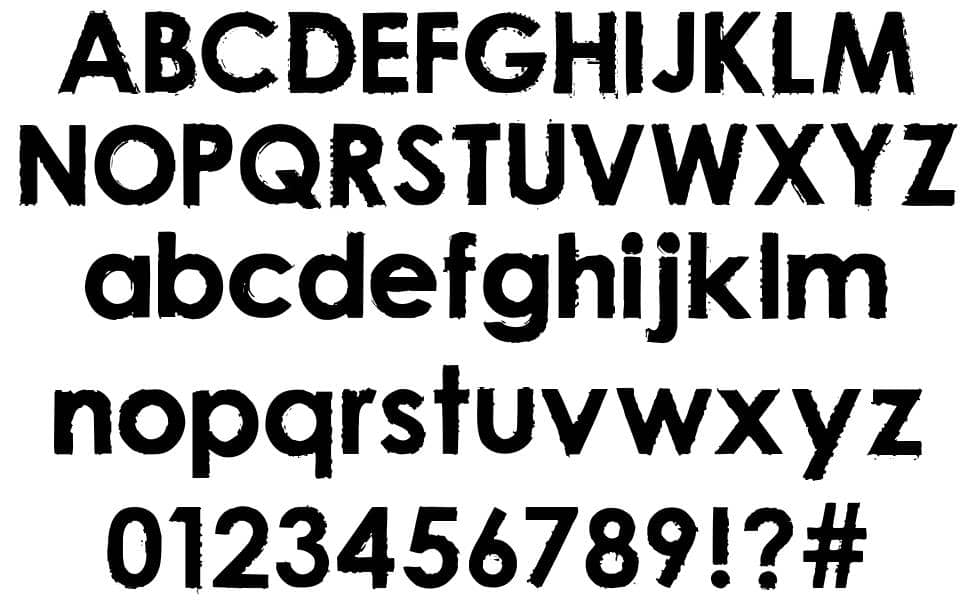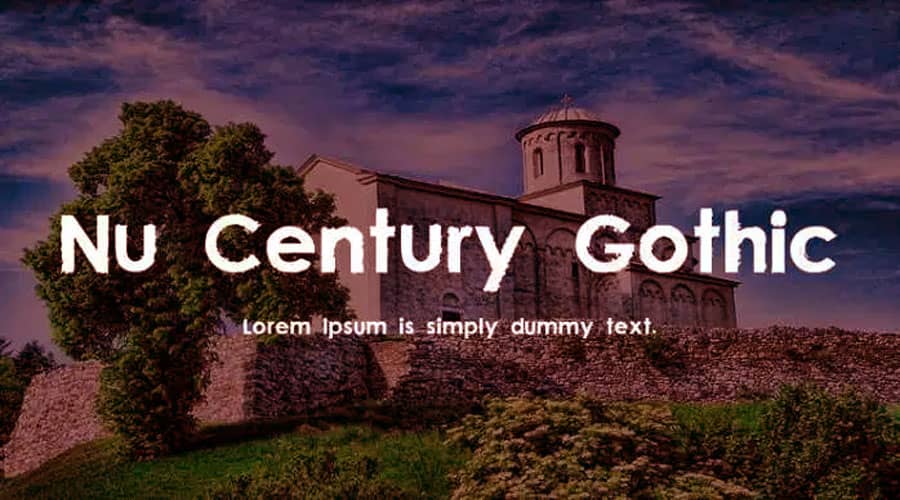
Nu Century Gothic is a sans serif font with a fancy style, designed by Ere/WMX. The font information lists it as free for personal use, so check the license before you use it in paid work.
About the Nu Century Gothic font
The font is filed under Sans Serif and Fancy fonts on this site. Expect a clean sans shape with a stylized touch, which sets it apart from a plain text face.
The font has one style listed. It includes uppercase and lowercase letters, along with a few special characters.
Use it for headlines, posters, logos, packaging, book covers and social posts. Keep body text in a plainer font, since stylized letters can slow reading in long passages.
| Name | Nu Century Gothic font |
| Style | Sans Serif, Fancy |
| Designer | Ere/WMX. |
Set the font at a large size for titles and check the spacing between letters before you print. A short word or a name usually shows the style best.
Who designed Nu Century Gothic?
The font information lists Ere/WMX as the designer. The font comes as OTF and TTF files.
Does Nu Century Gothic have more than one style?